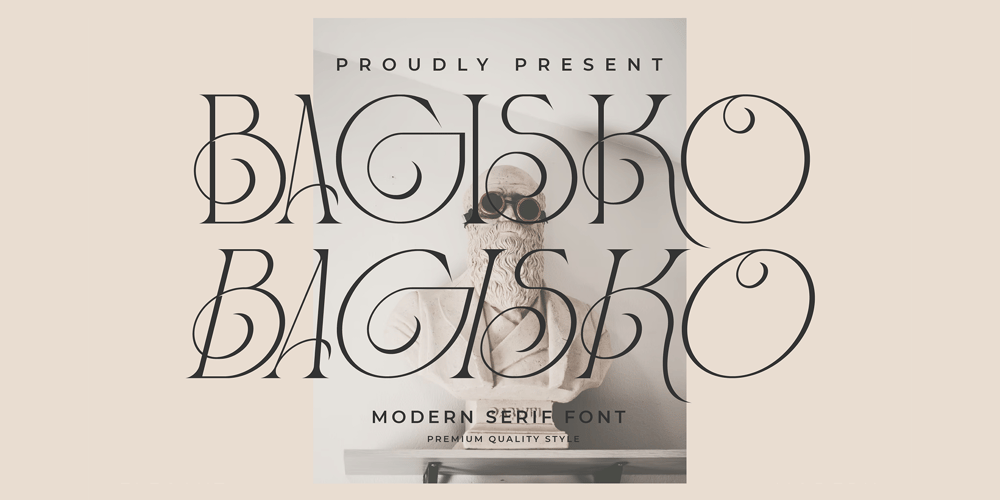
BAGISKO Font Family was designed by Heru Utama Putra and published by Letterena Studios. BAGISKO contains 2 styles and family package options. Bagisko is a serif modern and classic typeface with a unique style & modern look. This typeface is perfect for an elegant & luxury logo, book or movie title design, fashion brand, magazine, clothes, lettering, quotes, and so much more.